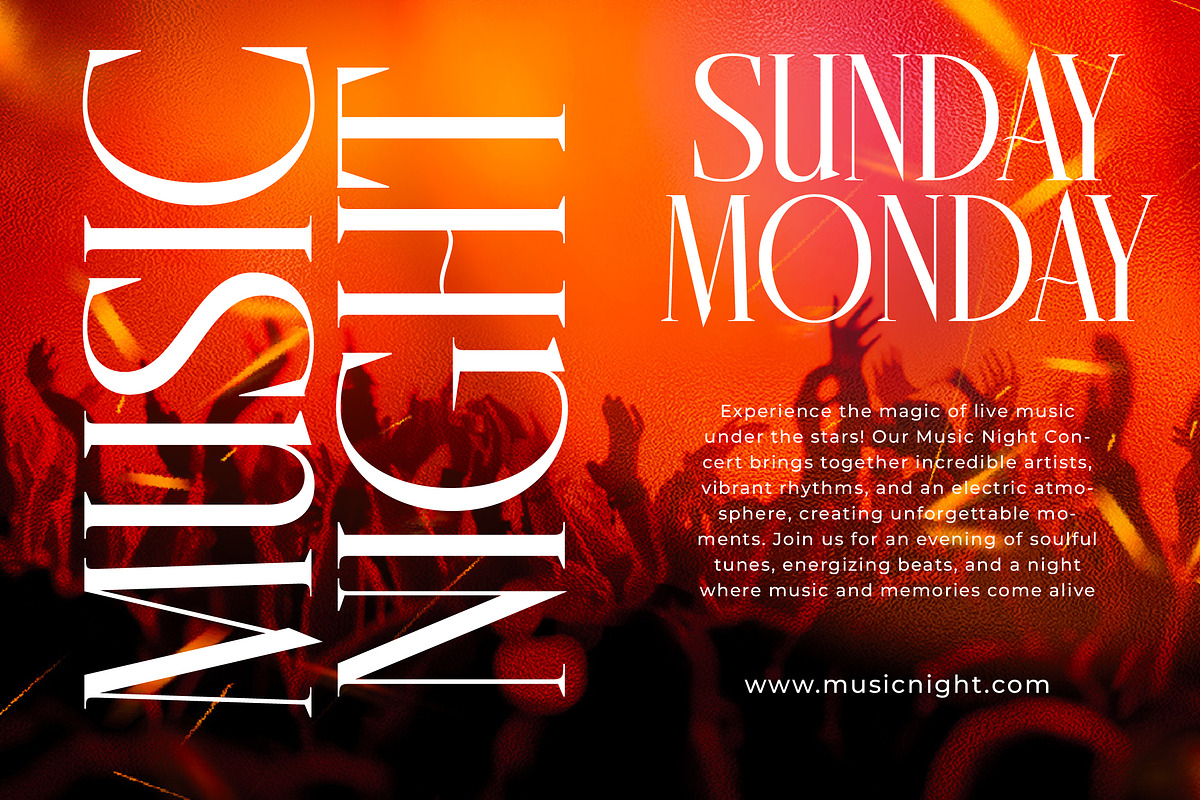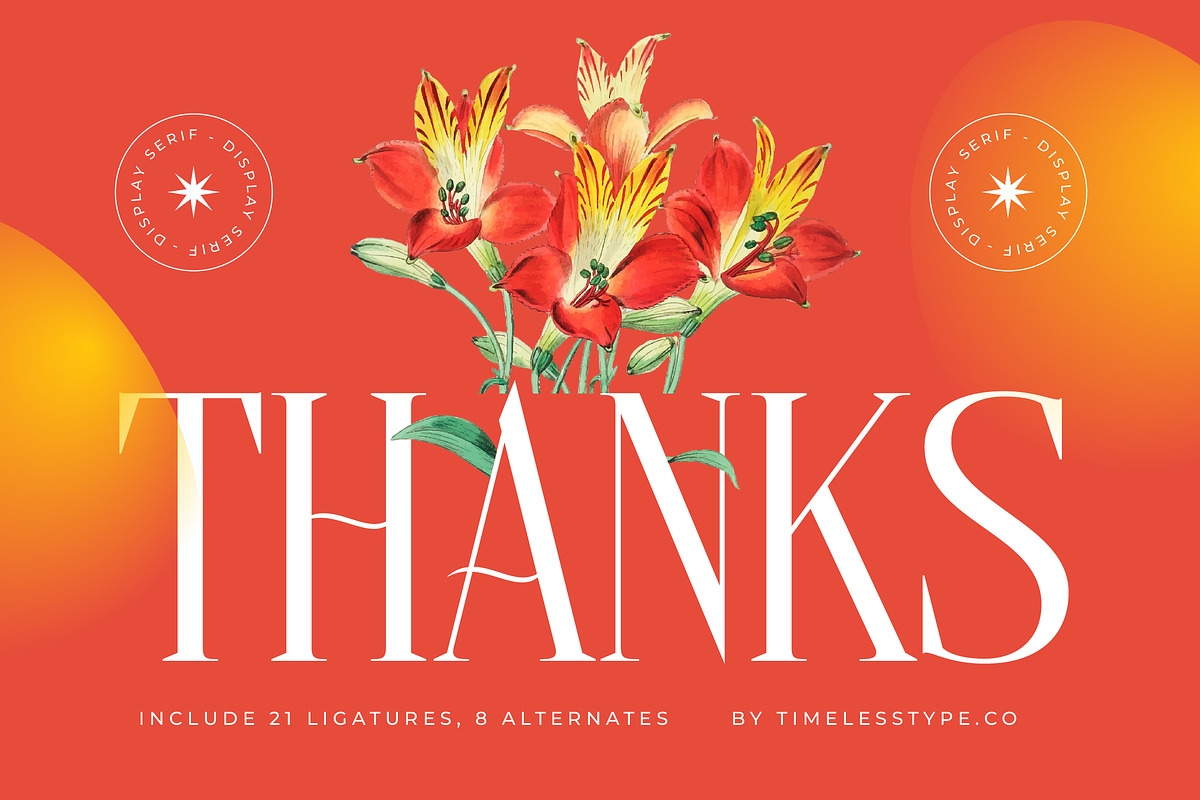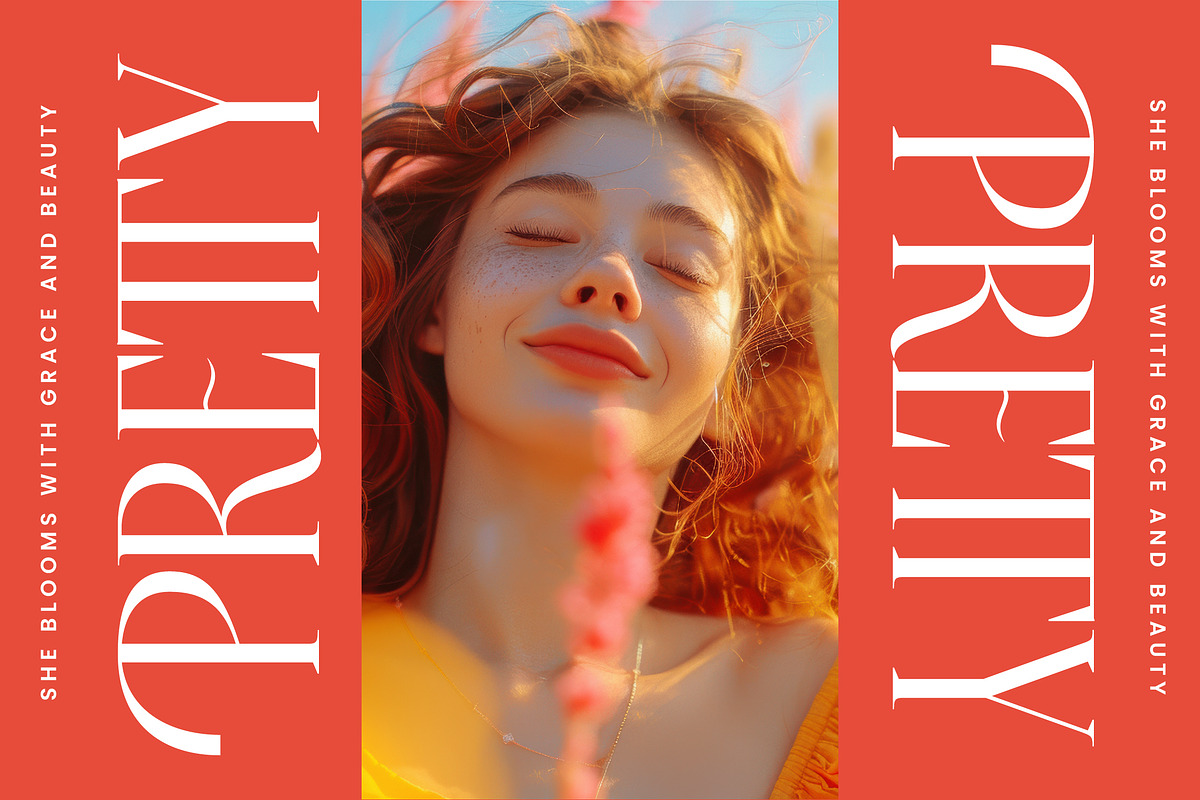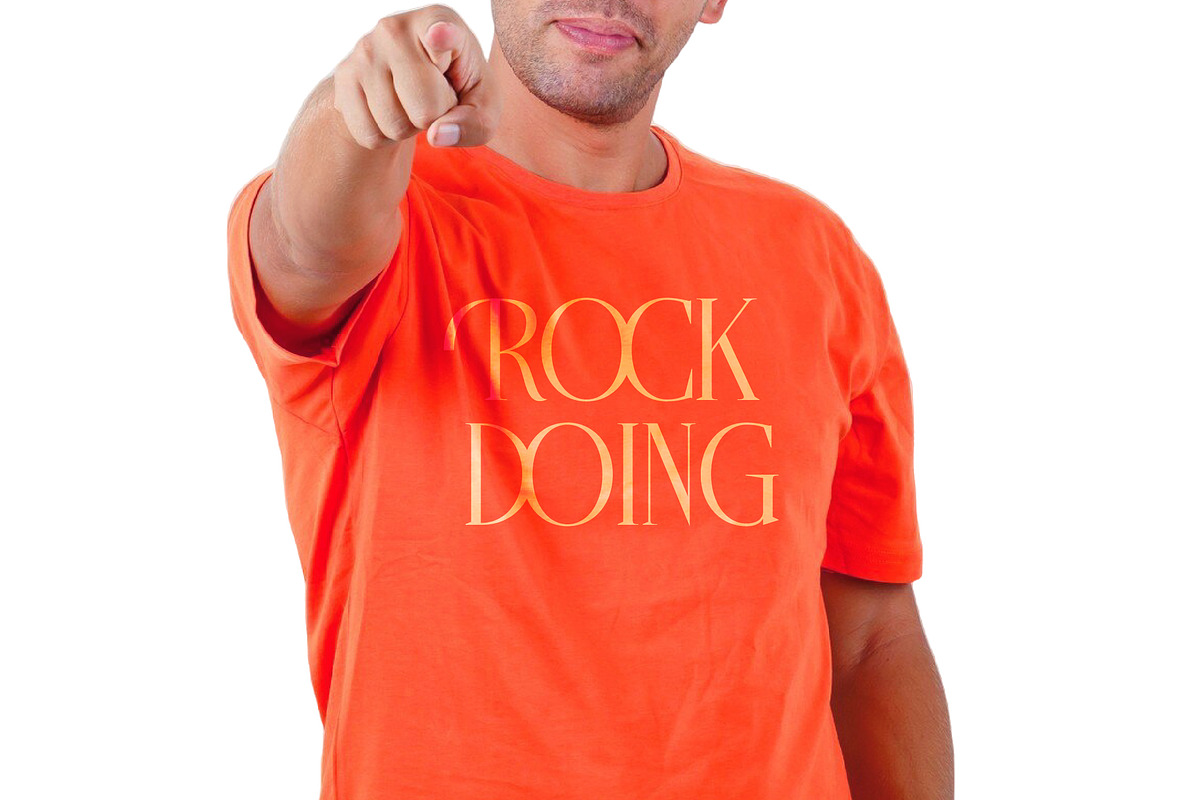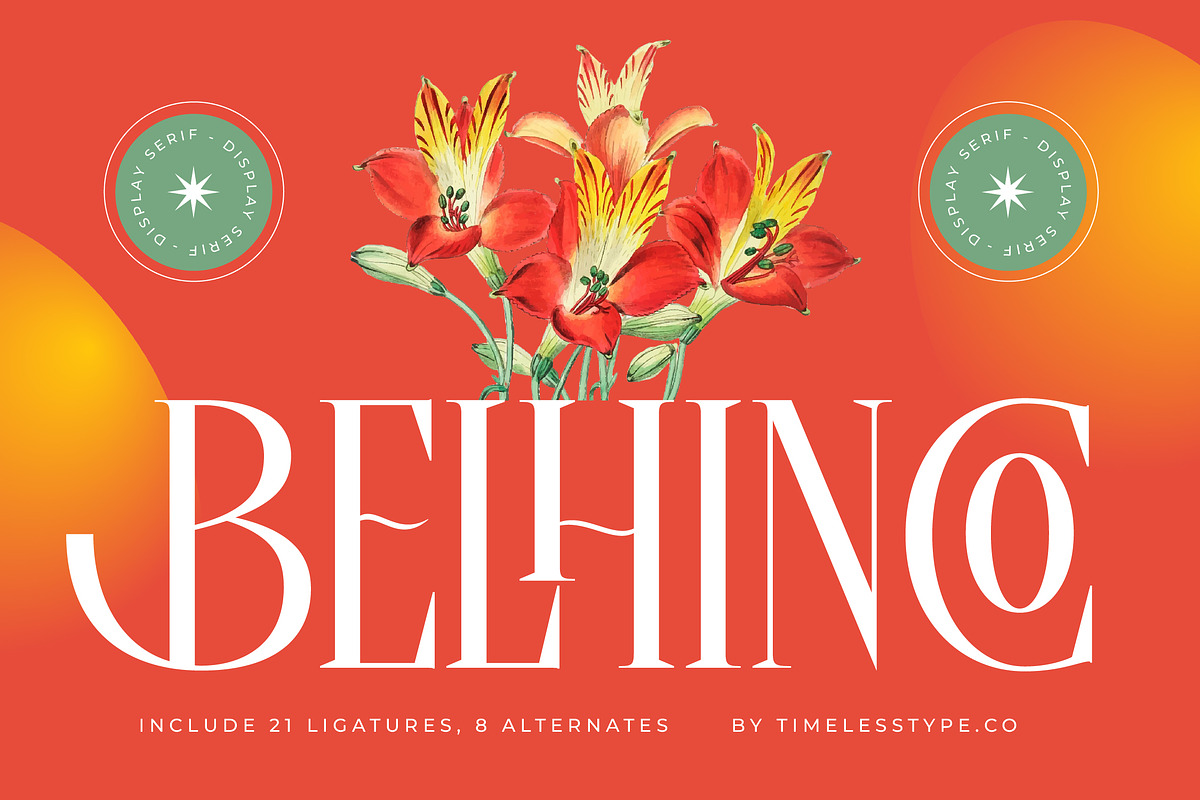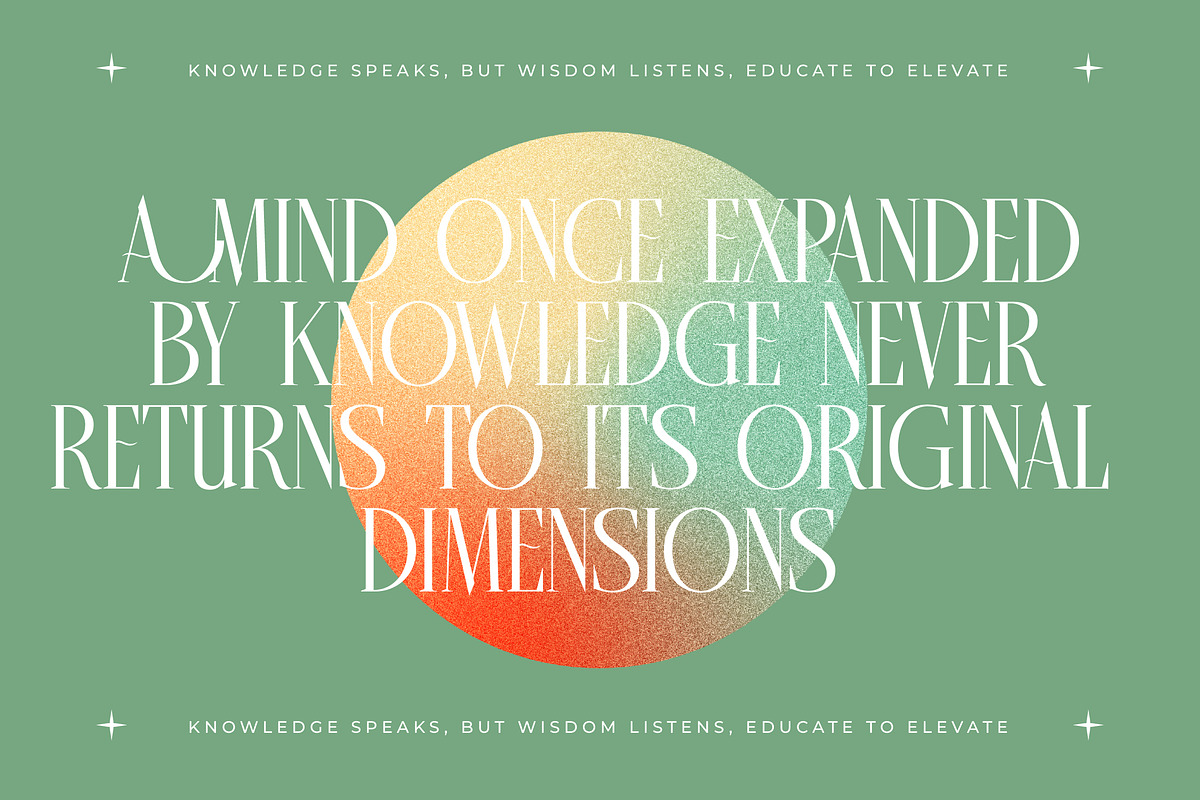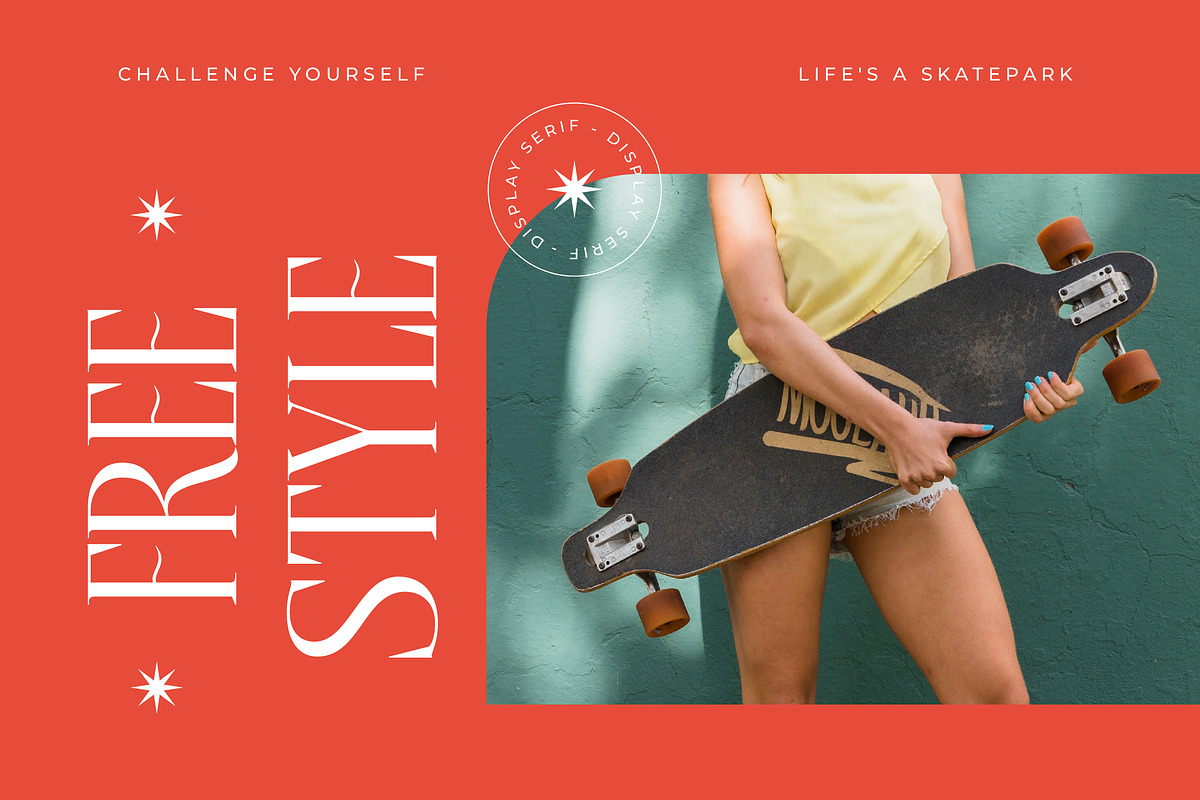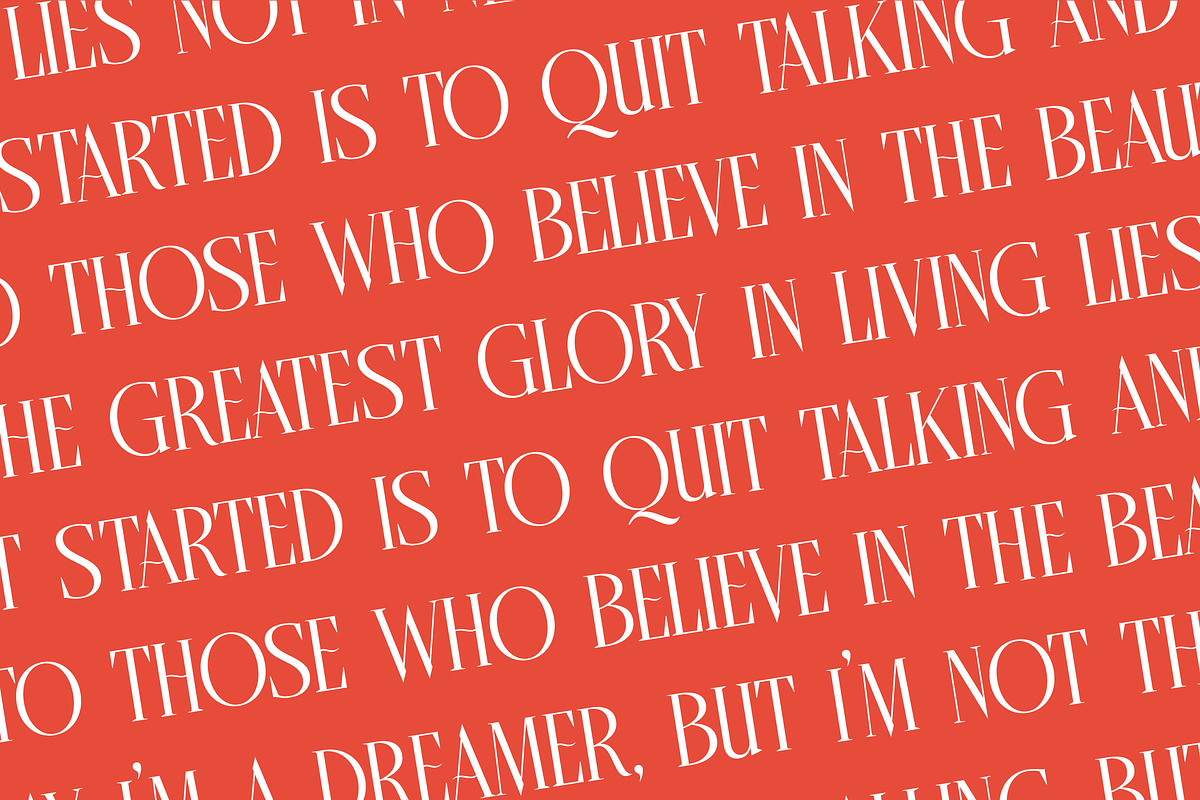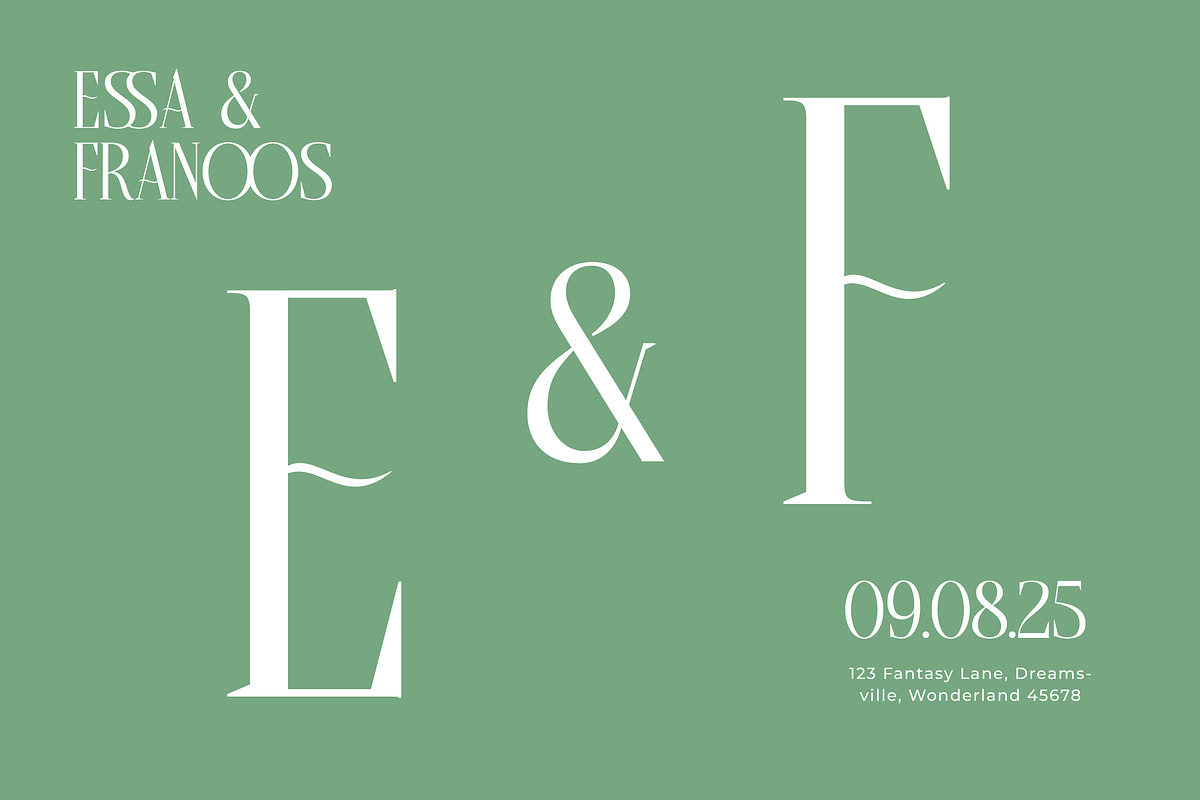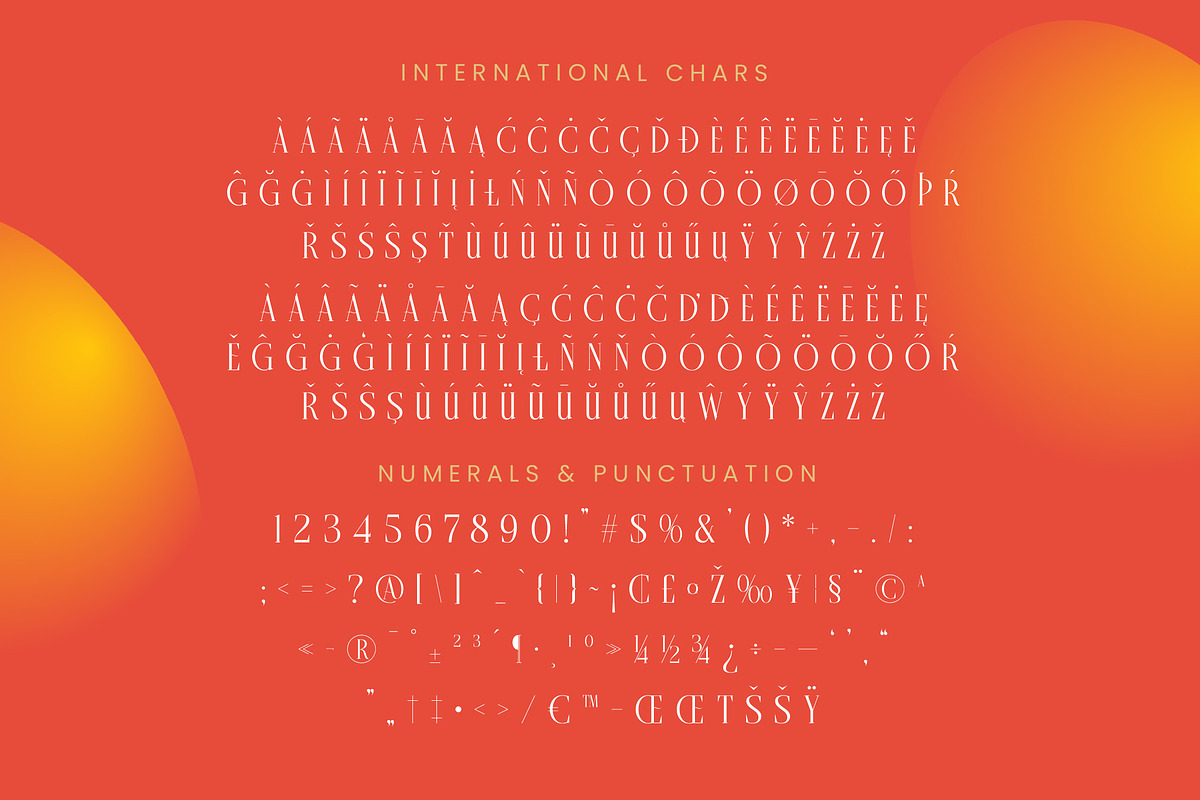
Belhinco Luxury Display Serif Font
Belhinco is a sophisticated display serif that commands attention through its graceful silhouettes and refined elegance. It strikes the perfect balance between timeless tradition and contemporary flair, making it an essential addition to any high-end design toolkit.
Drawing inspiration from the botanical world's delicate structures and the poise of vintage editorial spreads, this font captures a sense of organic luxury. The interplay of sharp serifs and fluid curves creates a rhythmic visual flow that evokes the atmosphere of a high-fashion boutique.
Exuding an air of exclusivity, this modern serif display is crafted for those seeking a premium aesthetic. Its luxury typography feel is enhanced by a high-contrast serif design that ensures every word carries a significant branding impact, providing an editorial font quality that feels both expensive and approachable.
As the modern serif trend continues to dominate the creative landscape, this typeface offers a fresh perspective on character-driven typography. It fits perfectly within the current wave of editorial display fonts that prioritize unique letterforms and artistic expression, ensuring your projects remain at the cutting edge of contemporary design.
This versatile typeface is the ideal choice for high-end logo design and comprehensive branding systems where personality is paramount. It excels in editorial layouts, luxury packaging, and delicate wedding stationery, while its sharp edges and stylish curves make it a standout choice for the fashion industry.
The font is packed with creative possibilities, including a suite of ligatures and alternates that allow for custom typographic arrangements. With full support for multilingual layouts and a wide array of international characters, it provides the flexibility needed for global reach while maintaining its distinct visual identity.
- Ligature 21 Alternate 8